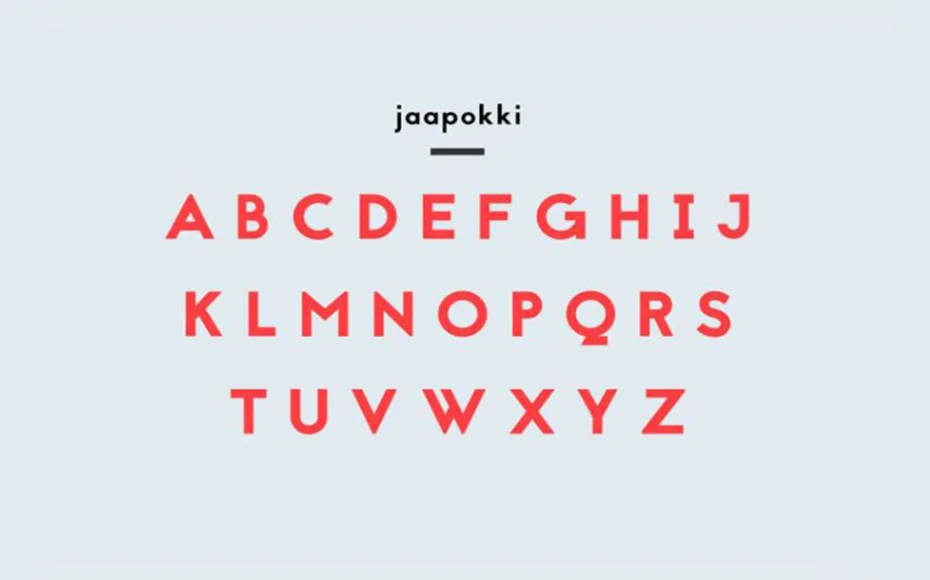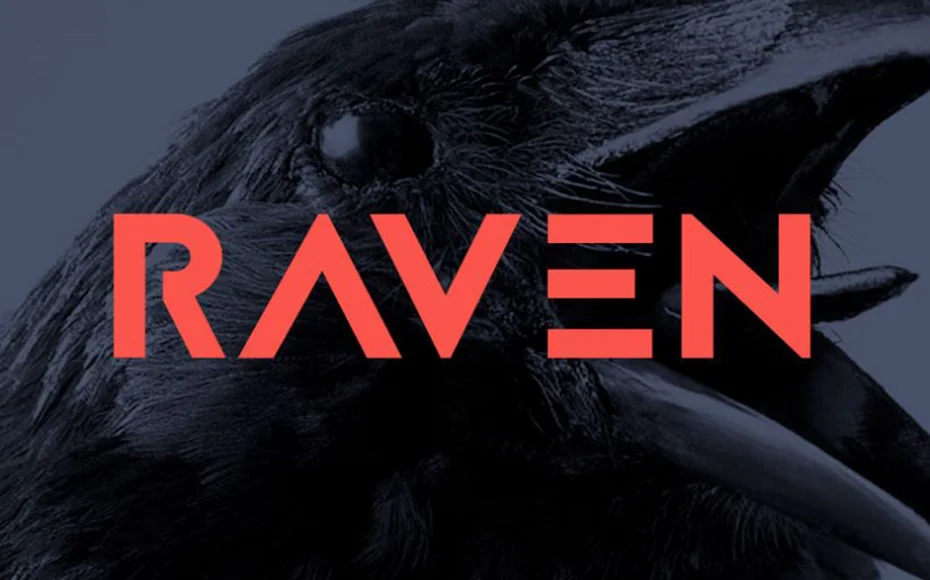
Jaapokki Font is a versatile sans serif typeface that has strong capitals and a smooth, open lowercase that is effective in a variety of applications. It is ideal for poster, logo, magazine, cover, banner, headers, etc.
Mikko Nuuttila takes the charge for developing it and sharing it for the first time in August16, 2014.
It contains awesome clean characters that can adjust in small text & large text. Therefore, you can also use this font for headings as well as long text content also.
Another best part of this great font is that you can use it for other purposes like display tasks and printing tasks. And again, this would mean that you have to spend on these processes.
Style:Sans Serif, Display, Typeface
Font Designer:Mikko Nuuttila
If you look at its structure, you will notice that you have seen its structure on any business site. This is only because of its professional look.
With this fine quality font, you can create book covers, long text paragraphs, headlines, unique emblems, web development, app development, game titlings, movie posters, and wherever you like.
Jaapokki Font comes with three different weights including Regular, Enhance, and Subtract. All of these styles possess Opentype features with 300 glyphs.